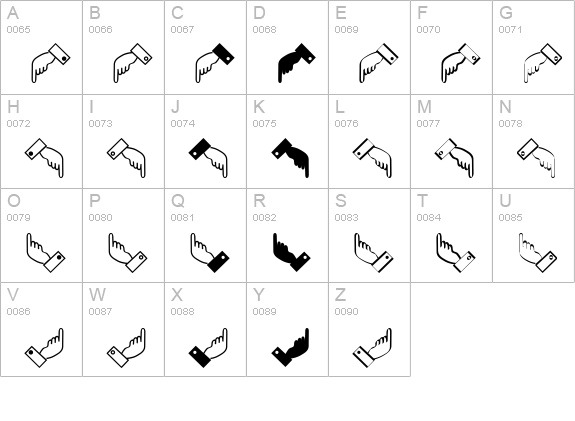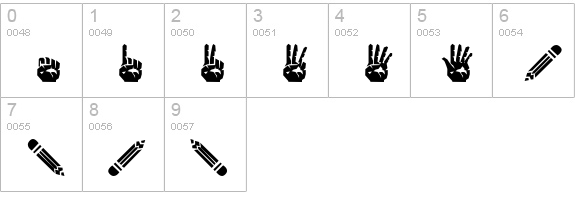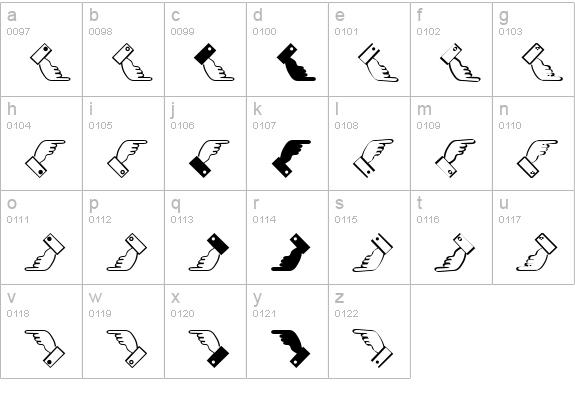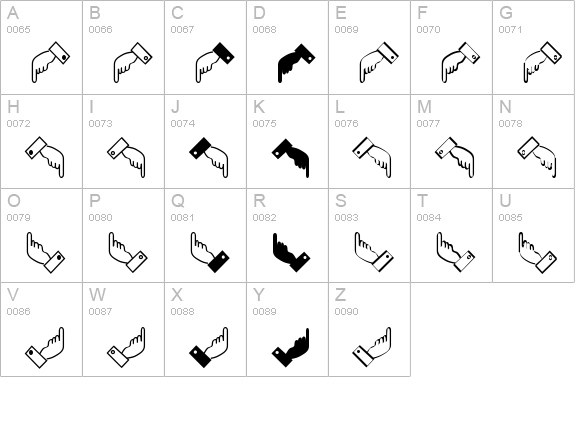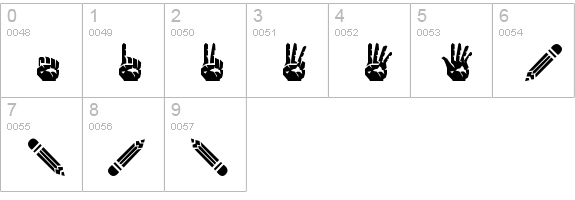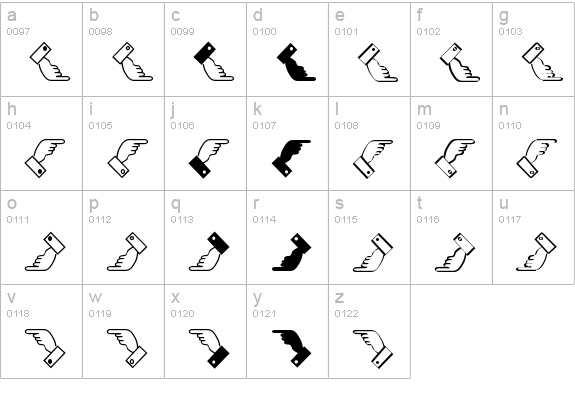
XPointedDesert Font Details
XPointedDesert font is a unique and elegant typeface that perfectly captures the essence of the desert landscape with its pointed and sleek design. Its sharp angles and clean lines give it a modern and sophisticated look, making it ideal for a wide range of design projects. This font is versatile and can be used for various purposes, from branding and logos to titles and headers. Its bold and eye-catching appearance will surely make your projects stand out. Best of all, XPointedDesert font is available for free download at FontsMarket.com. So you can easily access this stylish and distinctive font to elevate your designs without any cost. Don't miss the opportunity to add XPointedDesert font to your font collection and bring a touch of desert-inspired style to your projects.